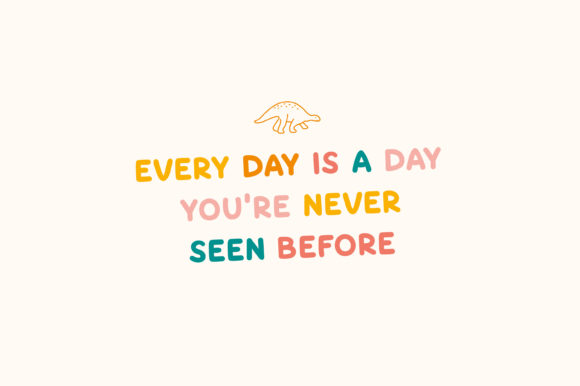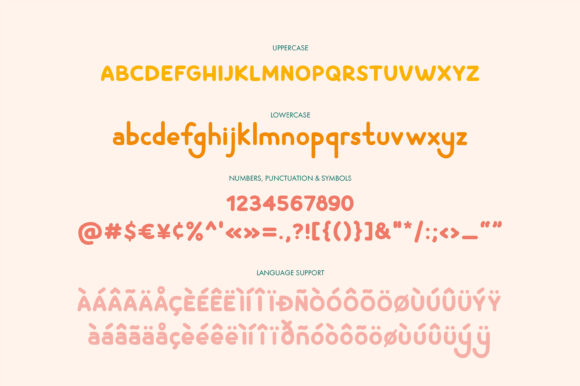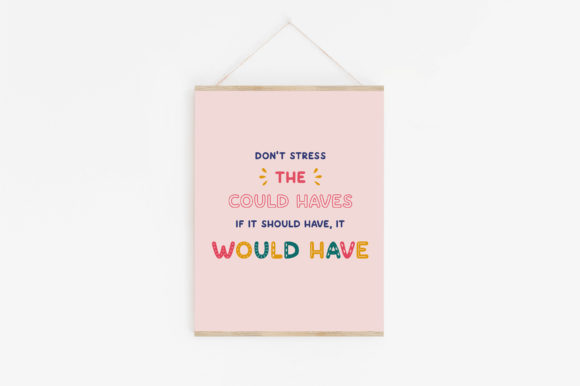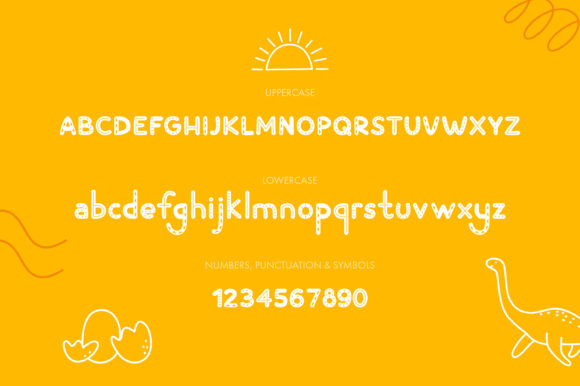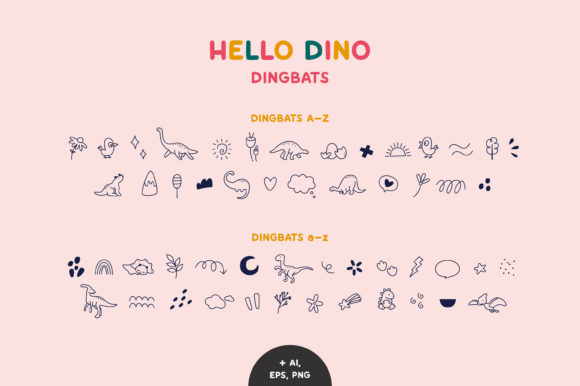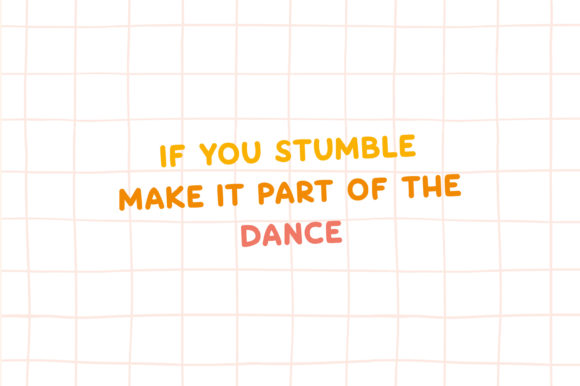
Hello Dino Font: The Ultimate Display Font for Designers and Crafters
Are you tired of using the same old fonts for your designs and crafts? Look no further! Hello Dino Font is here to add a touch of cuteness and friendliness to your projects. This versatile display font is perfect for a variety of uses, from digital design and presentations to crafting and making greeting cards.
What is Hello Dino Font?
Hello Dino Font is a unique and charming display font that is sure to capture the hearts of designers and crafters alike. Its playful and approachable design makes it an excellent choice for a wide range of projects, from fun and quirky designs to more serious and professional applications.
Key Features of Hello Dino Font
- Cute and Friendly Design: Hello Dino Font boasts a delightful and amiable design that is sure to bring a smile to your face. Its rounded edges and soft curves make it perfect for creating visually appealing designs.
- Versatile: This font is incredibly versatile and can be used for a variety of projects, including digital design, presentations, crafts, and greeting cards.
- Easily Readable: Despite its playful design, Hello Dino Font is easy to read, making it perfect for both headings and body text.
Uses of Hello Dino Font
Hello Dino Font is an incredibly versatile font that can be used in a variety of ways. Here are some ideas to get you started:
- Crafts: Use Hello Dino Font to add a personal touch to your craft projects, such as scrapbooking, card making, and DIY decorations.
- Digital Design: Add a playful touch to your digital designs, such as social media graphics, blog posts, and website headers.
- Presentations: Make your presentations more engaging and fun with Hello Dino Font.
- Greeting Cards: Create personalized and adorable greeting cards for special occasions, such as birthdays, holidays, and weddings.
Why Choose Hello Dino Font?
With so many fonts available, why choose Hello Dino Font? Here are a few reasons why this font stands out:
- Unique Design: Hello Dino Font has a one-of-a-kind design that will set your projects apart from the rest.
- Time-Saving: With Hello Dino Font, you can create professional-looking designs in no time, saving you time and effort.
Tips for Using Hello Dino Font
Here are some tips for getting the most out of Hello Dino Font:
- Experiment with Different Sizes: Try out different font sizes to see what works best for your project.
- Pair with Other Fonts: Combine Hello Dino Font with other fonts to create a unique and visually appealing design.
- Use it for Headings: Use Hello Dino Font for headings and titles to add a pop of personality to your designs.
Hello Dino Font is a versatile and charming display font that is perfect for designers and crafters. Its cute and friendly design makes it an excellent choice for a wide range of projects, from digital design and presentations to crafting and making greeting cards. With its ease of use, unique design, and time-saving capabilities, Hello Dino Font is sure to become your go-to font for all your design needs.